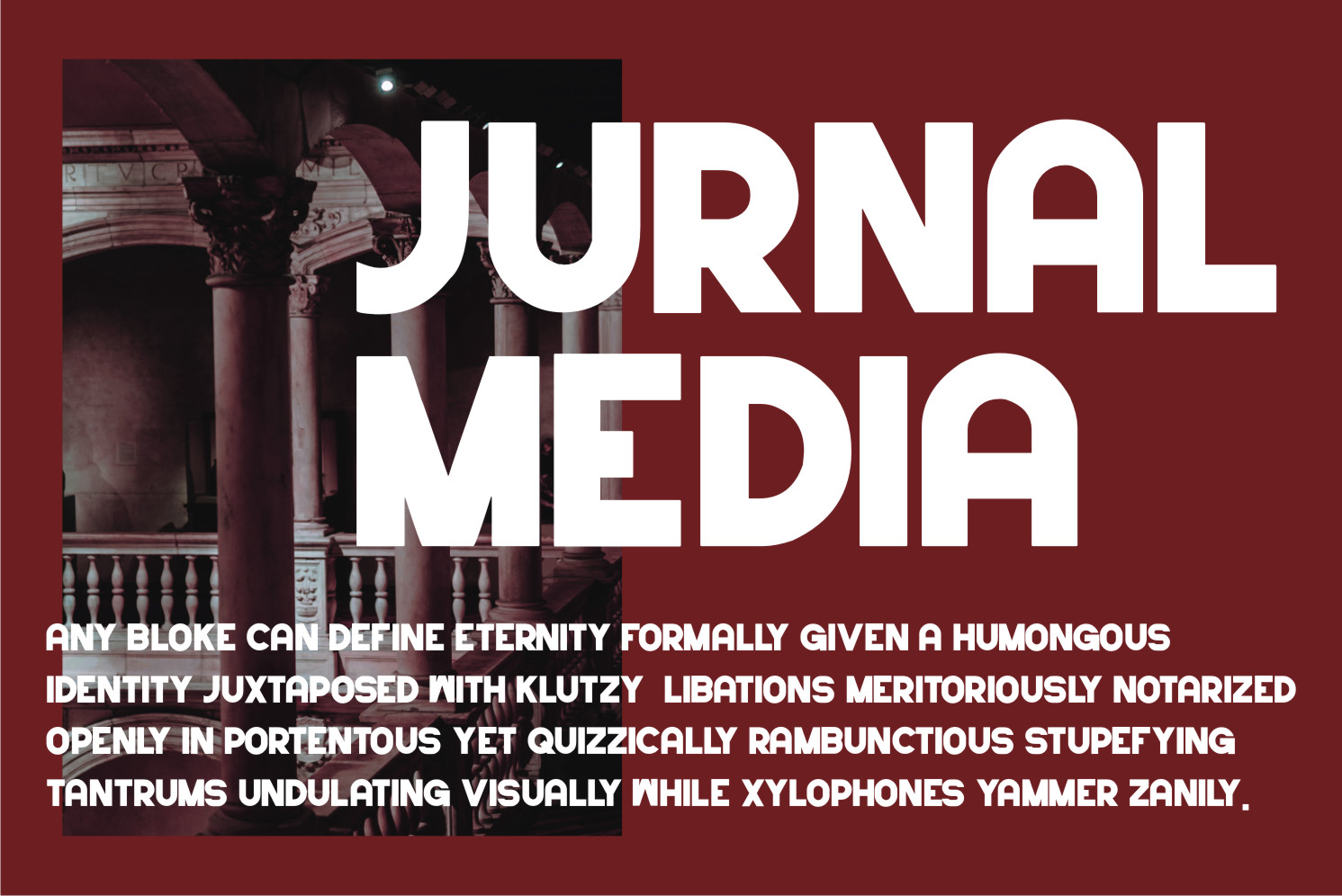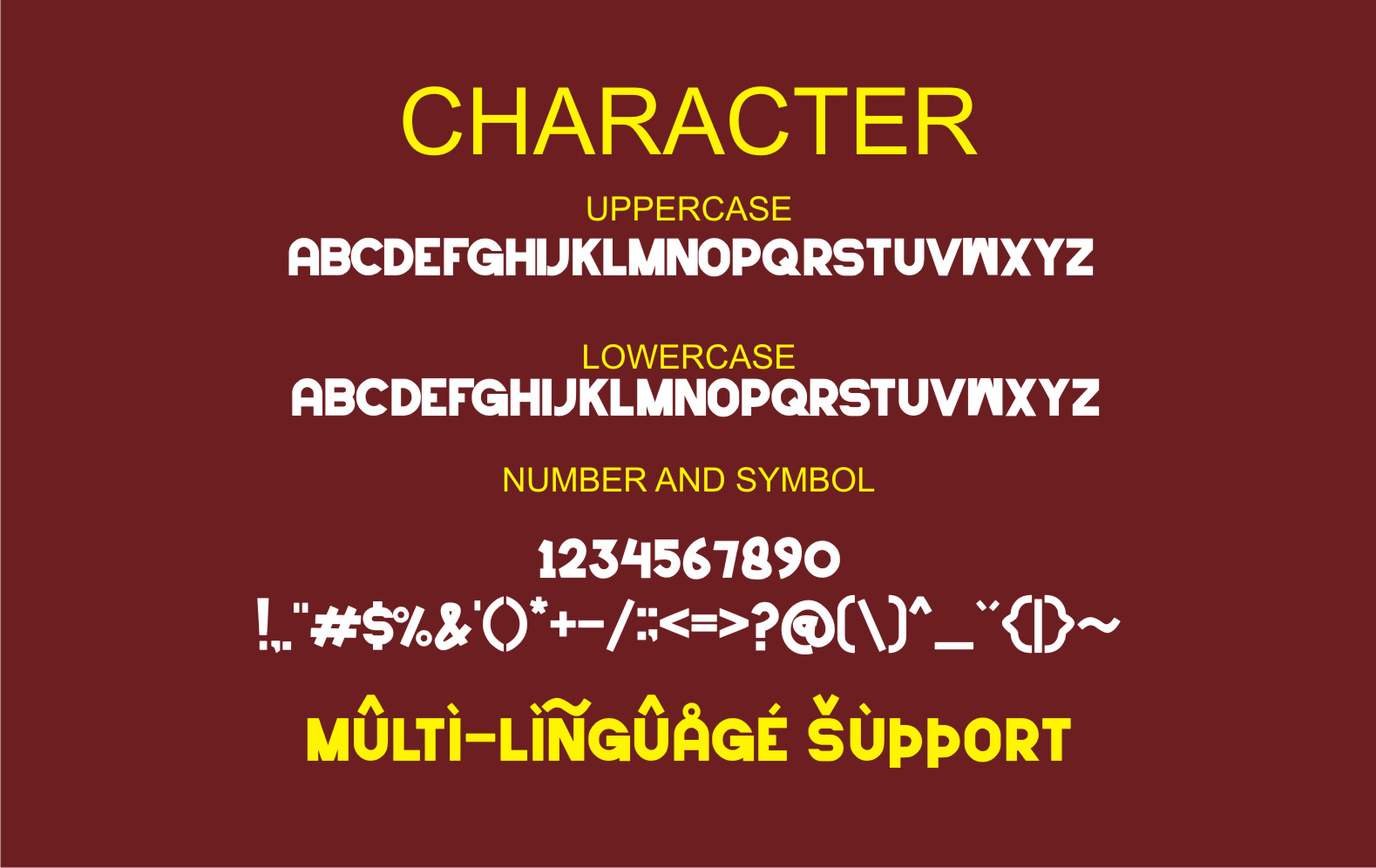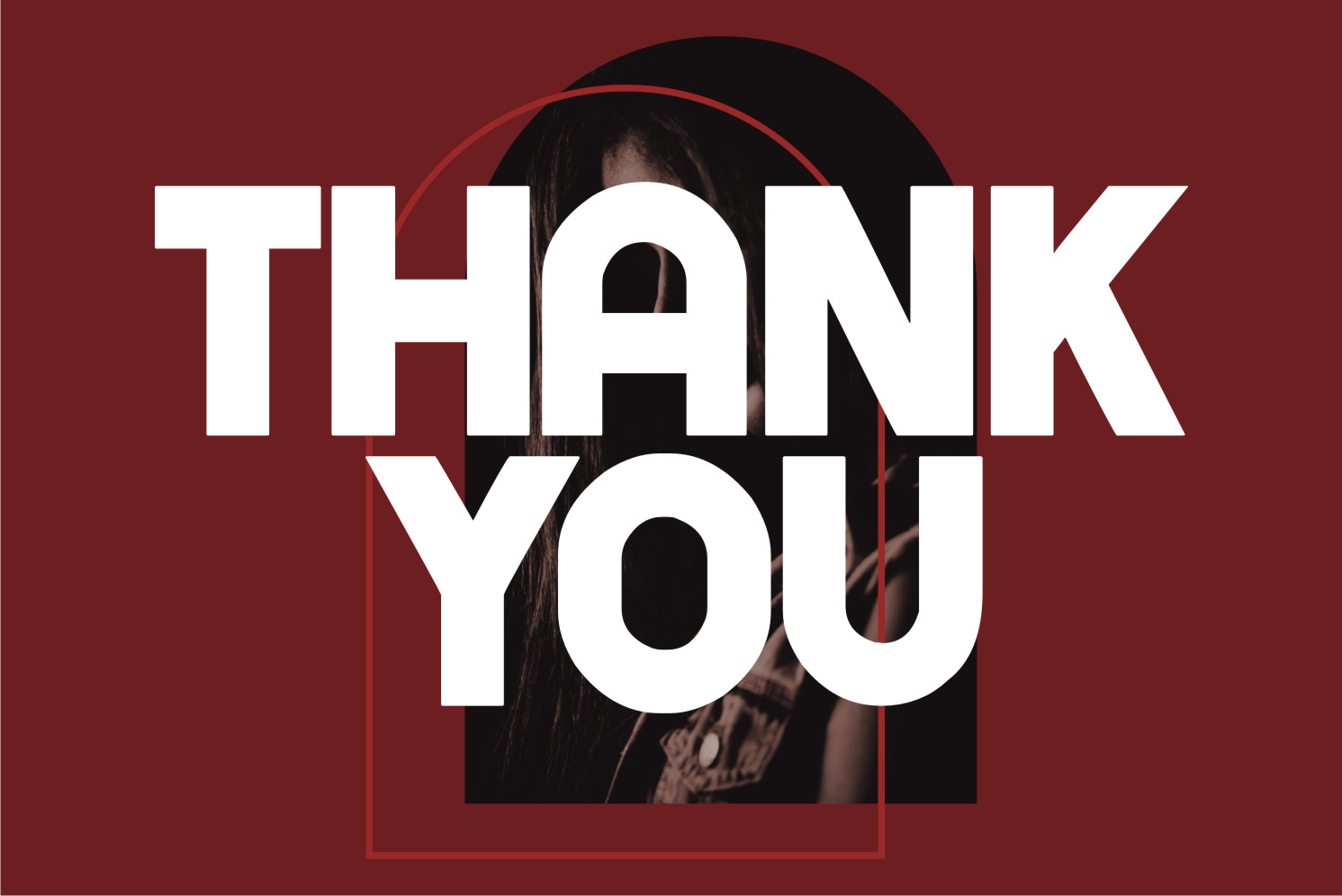
Delta Bold Display Font
It’s a cool, bold and modern display font. This font is ideal for writing web designs, business cards, or pretty much anything else that requires a unique touch.